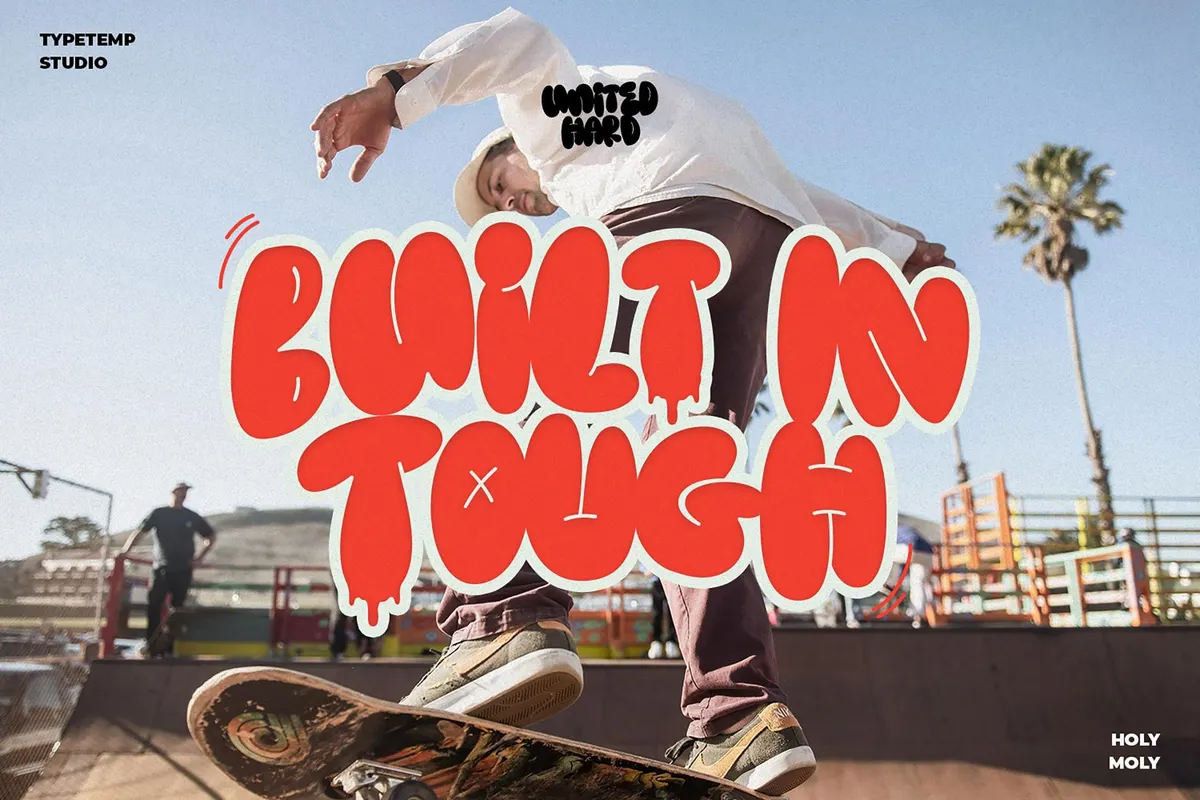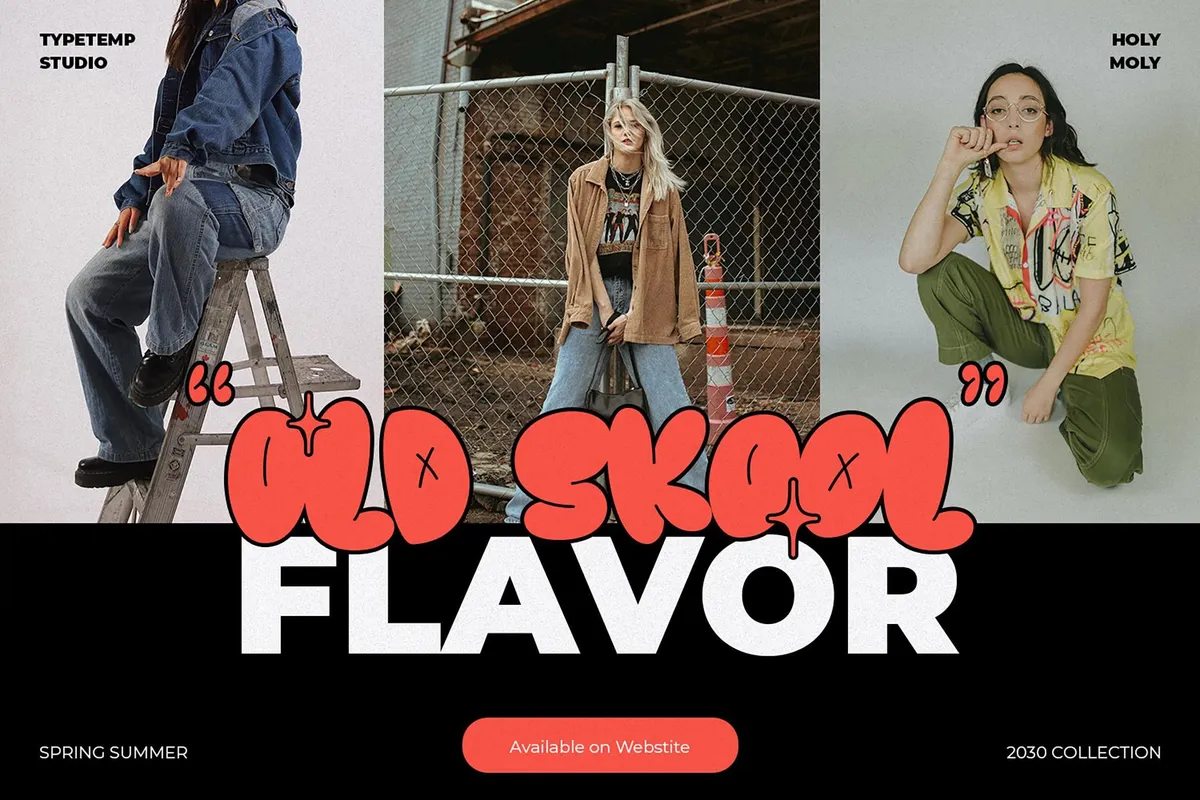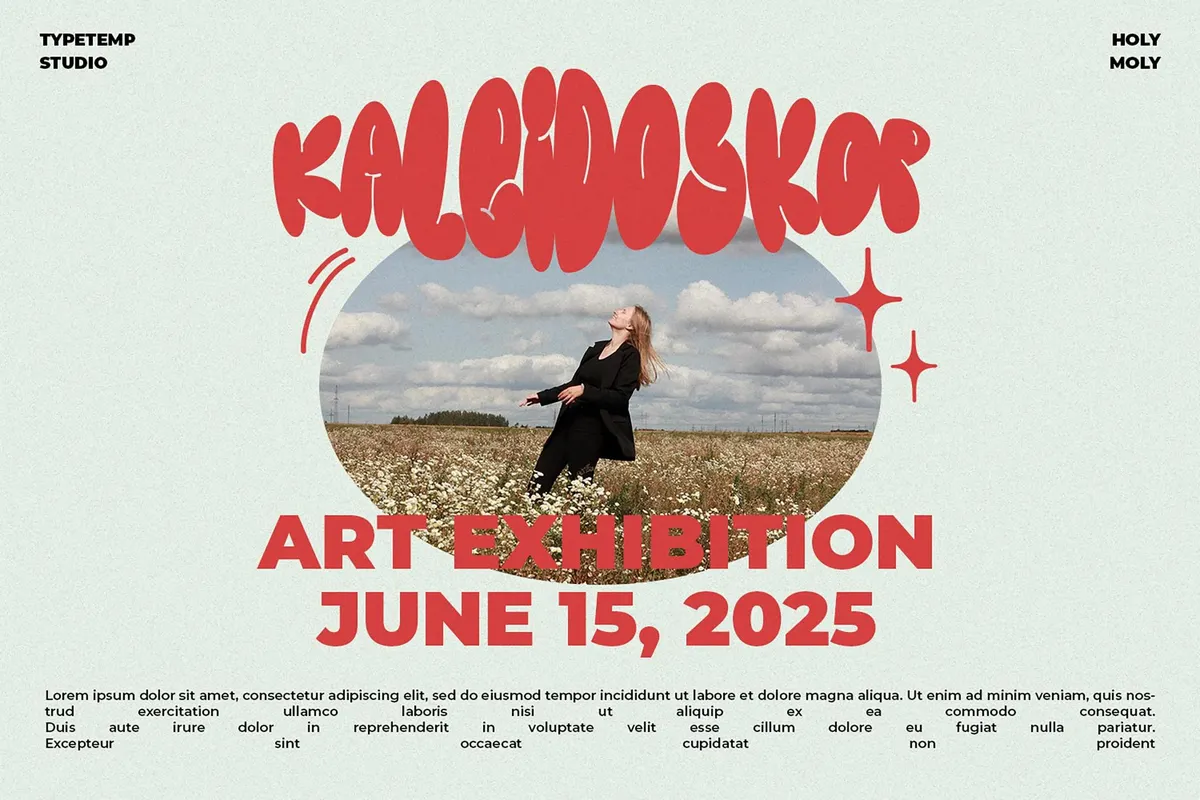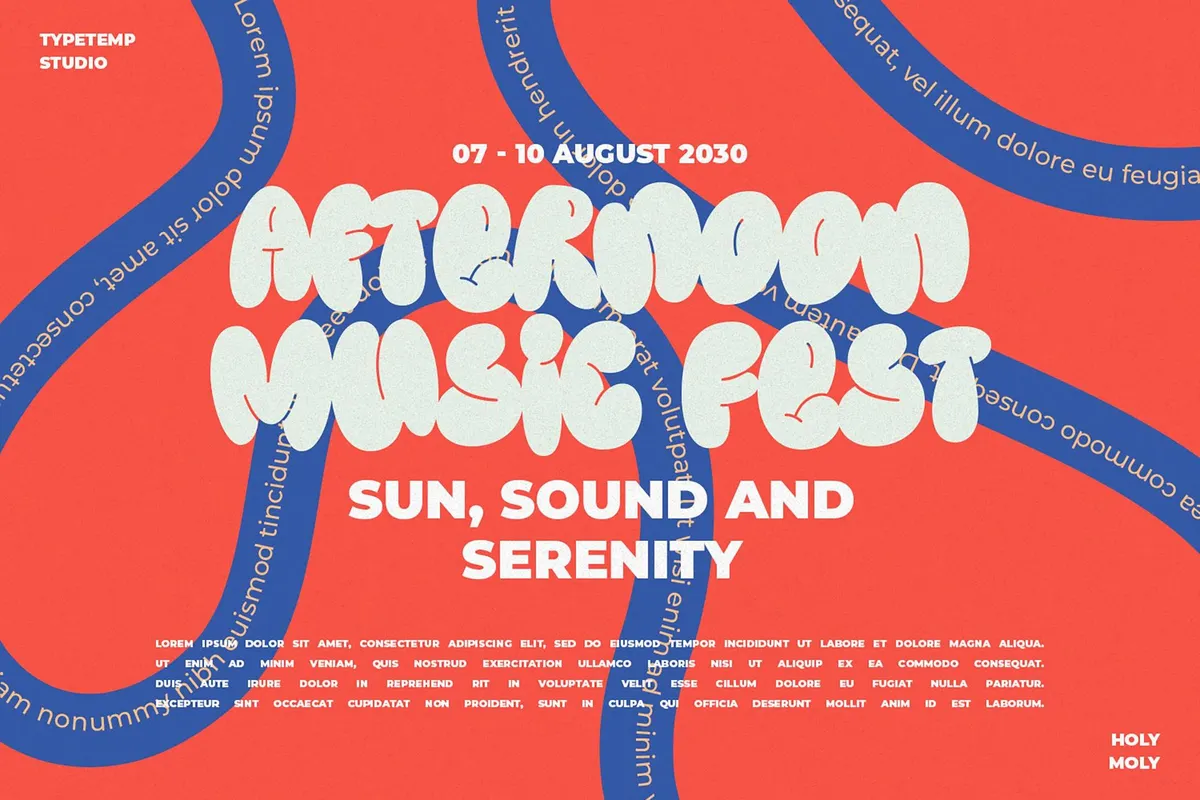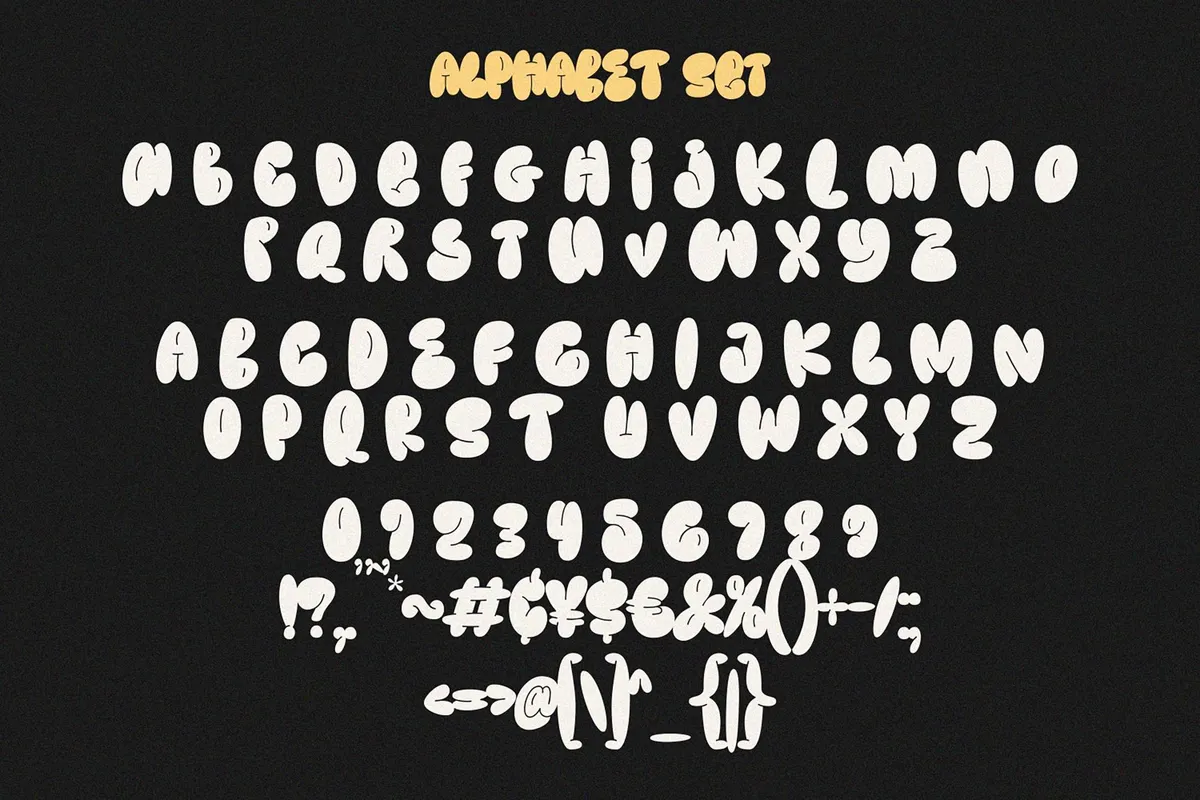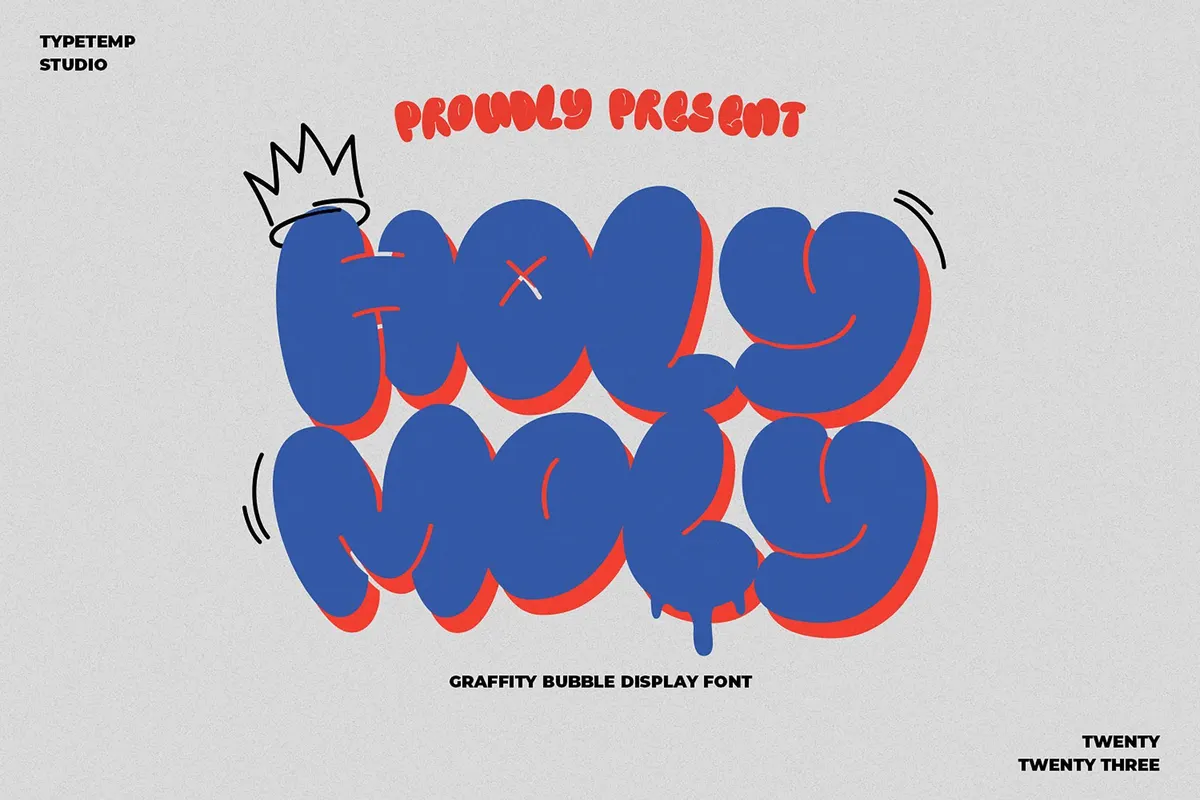
Holymoly Bubble Graffiti Display Font
When one speaks of the 70s legacy, they usually mean the hippie stuff. But that's not us today, as we'll get some authentic NY vibes stamped in Holymoly, a bubble graffiti type.
One of the most iconic and recognizable graffiti styles is now in your fonts library; congrats! All its major features, like simplicity, playful aesthetic, and visually impactful nature, have been embraced and turned into rebellious glyphs. A complete set, btw: there are uppercases, lowercases, accented characters for multilingual support, numerals, and punctuation. Plus, you'll access alternatives and ligatures, making it even easier to create posters, branding, apparel, social media graphics and more.